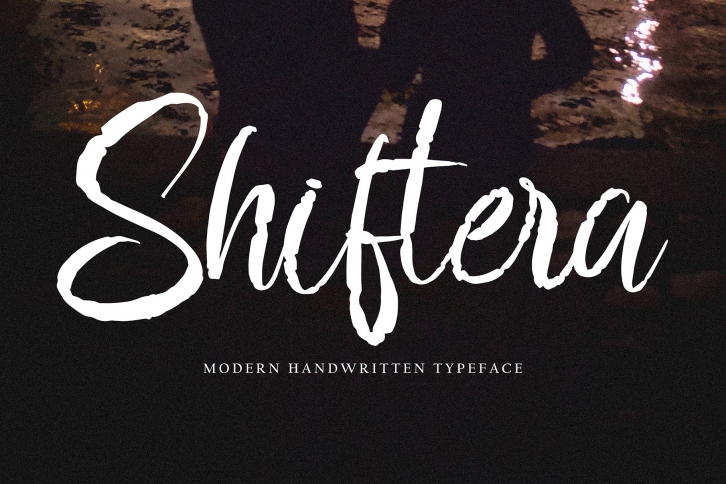
Shiftera is a gorgeous font that was realeased on November 21, 2022. The font can be used in many style contexts and design environments. Perfect for invitations, magazines, websites, logos, and more! It was designed by Pineungtype and the file size is 17.68 MB. Thanks for checking out this font!